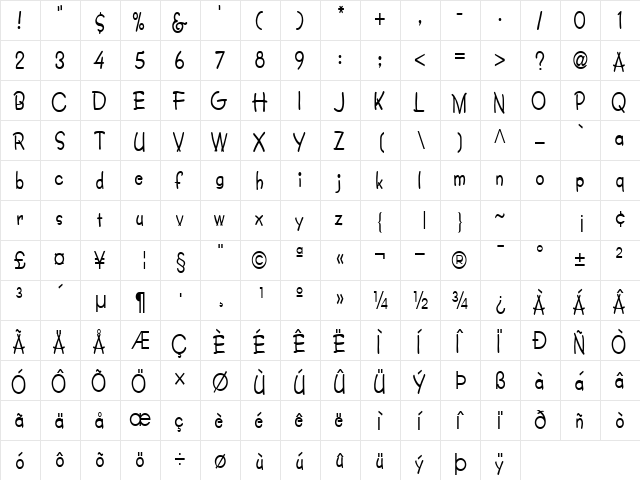
PoetryInMotion101 Regular Font Preview
PoetryInMotion101 Regular
Design Context for PoetryInMotion101 Typeface
PoetryInMotion101 offers clean, dependable letterforms without strong stylistic allegiance, making it a practical choice for designers who need flexibility.
Pro Tip: Use PoetryInMotion101 in both headline and body roles to test its range before committing to a single application.